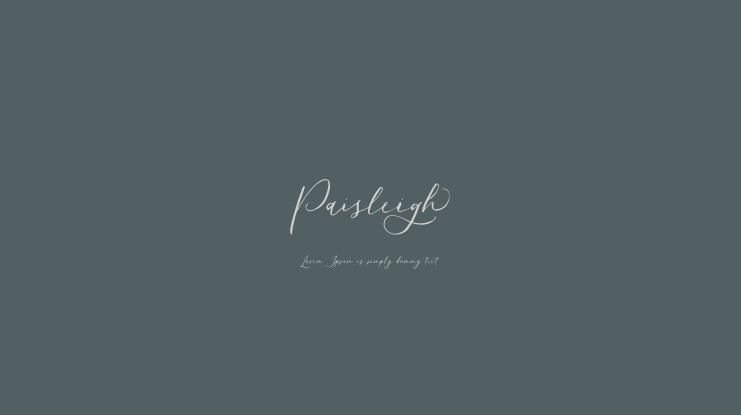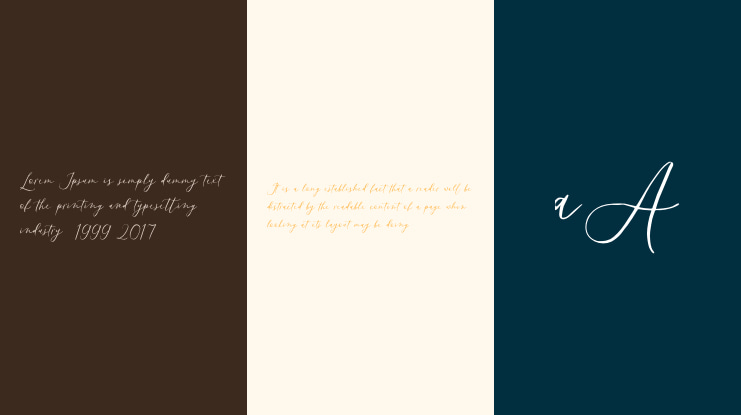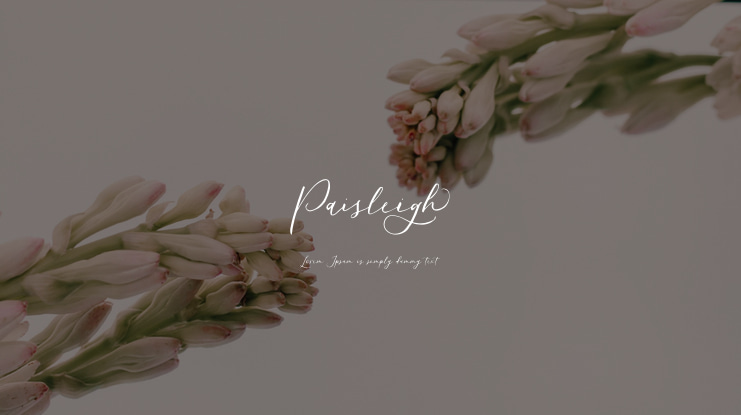
Paisleigh Font
Paisleigh is a delicate, elegant and flowing handwritten font. It has a beauty feel that will turn any crafting idea into a true standout.